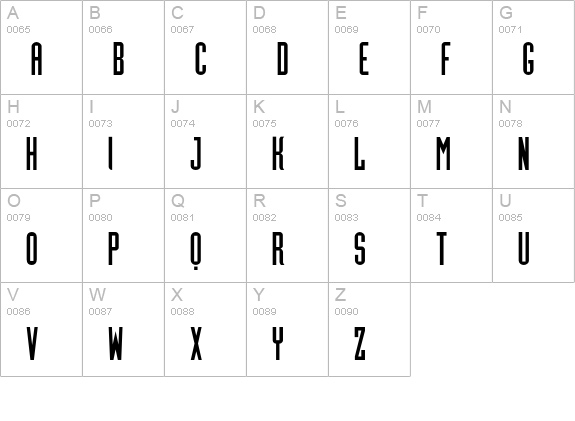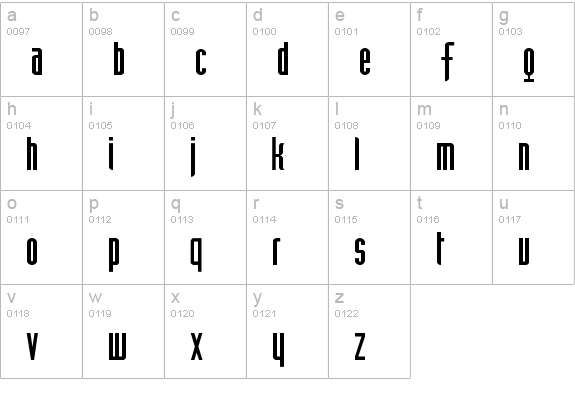
IronMan Font Details
Introducing IronMan font, a bold and dynamic typeface designed to embody the strength and resilience of the iconic superhero himself. This font exudes a futuristic and industrial aesthetic, with sharp edges and sleek lines reminiscent of Iron Man's powerful armor. Whether you're designing a poster, creating a logo, or crafting a digital masterpiece, IronMan font will add a touch of heroic flair to your projects. But what sets IronMan font apart from the rest? It's the fact that it is absolutely free! That's right, you can now download this remarkable font without spending a dime. Thanks to FontsMarket.com, you have the opportunity to unleash your creativity and channel your inner Tony Stark with this incredible typeface. With IronMan font, you'll be able to capture the essence of Iron Man's unwavering determination and unwavering spirit. Its bold and commanding presence will make a lasting impression, demanding attention and leaving a lasting impact on your audience. So why wait? Visit FontsMarket.com today and download IronMan font for free, because being a superhero has never been so accessible!